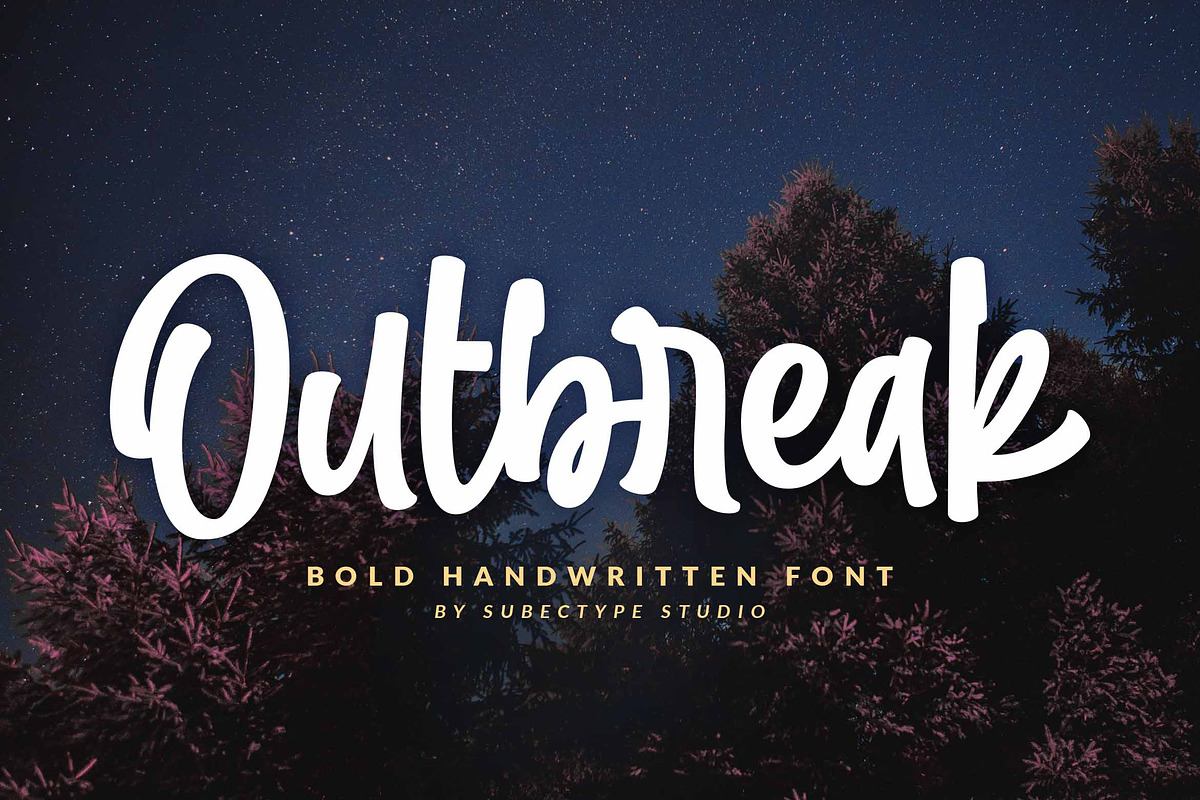
Outbreak – Bold Handwritten Font Free Download is a fierce and energetic script typeface that captures the raw power of hand-drawn lettering. With thick strokes, dynamic curves, and a gritty, urban edge, Outbreak is perfect for streetwear branding, posters, music covers, YouTube thumbnails, extreme sports graphics, and bold social media content.
Its expressive, graffiti-inspired style makes every word feel alive and rebellious. Whether you're crafting edgy merchandise or an eye-catching headline, Outbreak brings unstoppable attitude to your typography.
Designers love Outbreak for its bold personality, handcrafted texture, and versatility across both print and digital formats. Want to make a statement with confidence and style? Download Outbreak – Bold Handwritten Font Free Download and unleash raw creative energy in your next project.